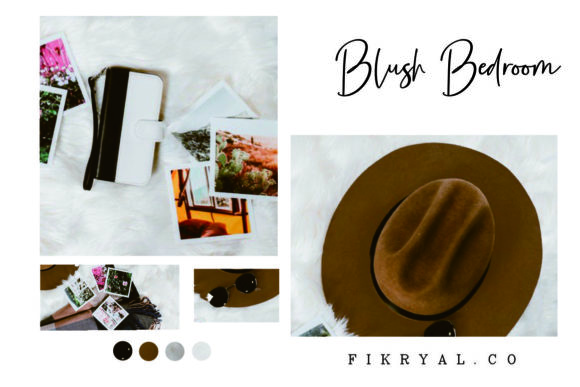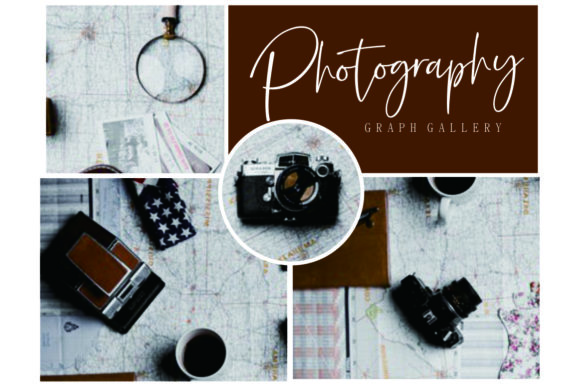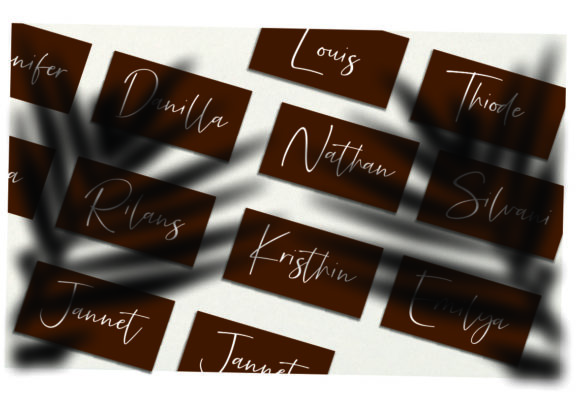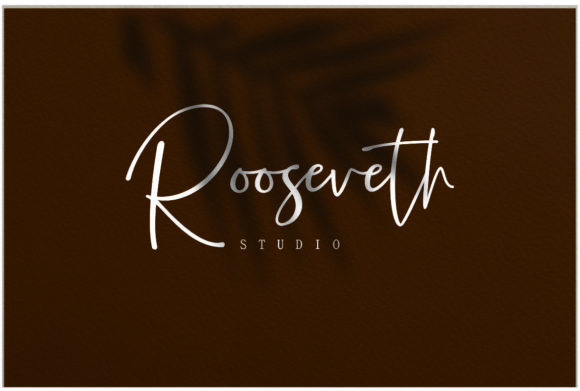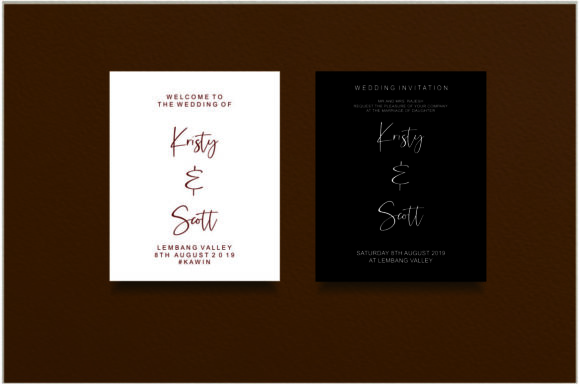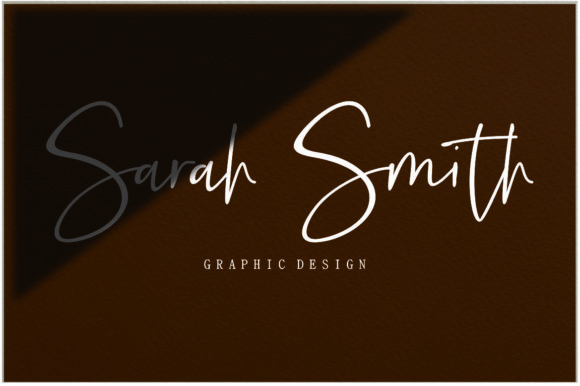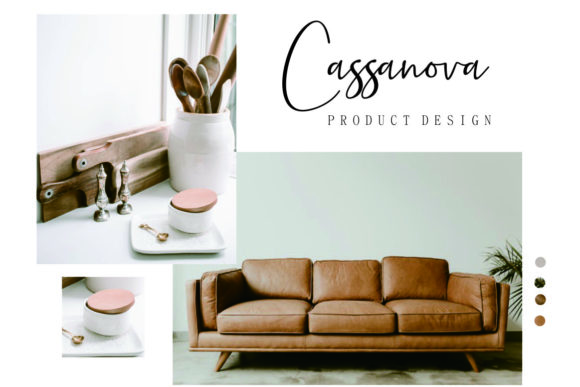
Precious Soul Font
About Precious Soul Font
Precious Soul is a beautiful handwritten font with a contemporary feel. It is designed to add a touch of authenticity to any design.